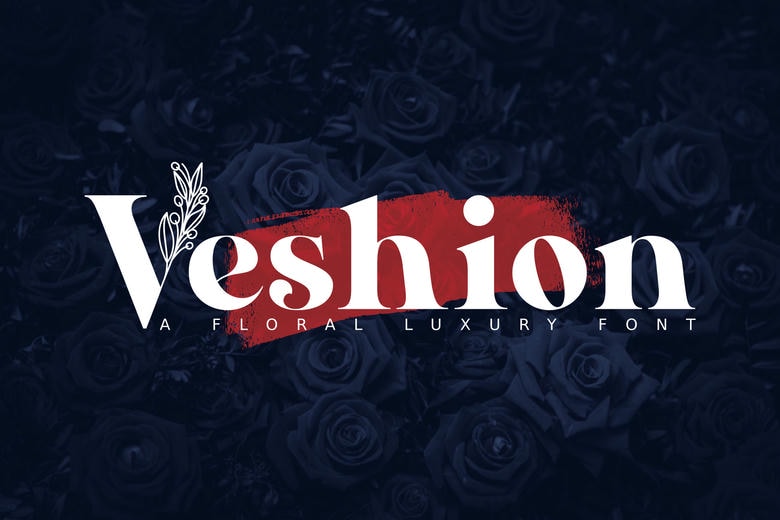
AL Veshion Font
Veshion is a new contemporary lavish font, which has a very stylish and feminine touch to it. This font can be used in wedding invitation designs, brand logos, packaging designs, magazine layouts, for a florist, on social media accounts, for designing menus of restaurants and cafes, for greeting cards and headers and any other creative project that requires this style of font.
AL Veshion Serif Font